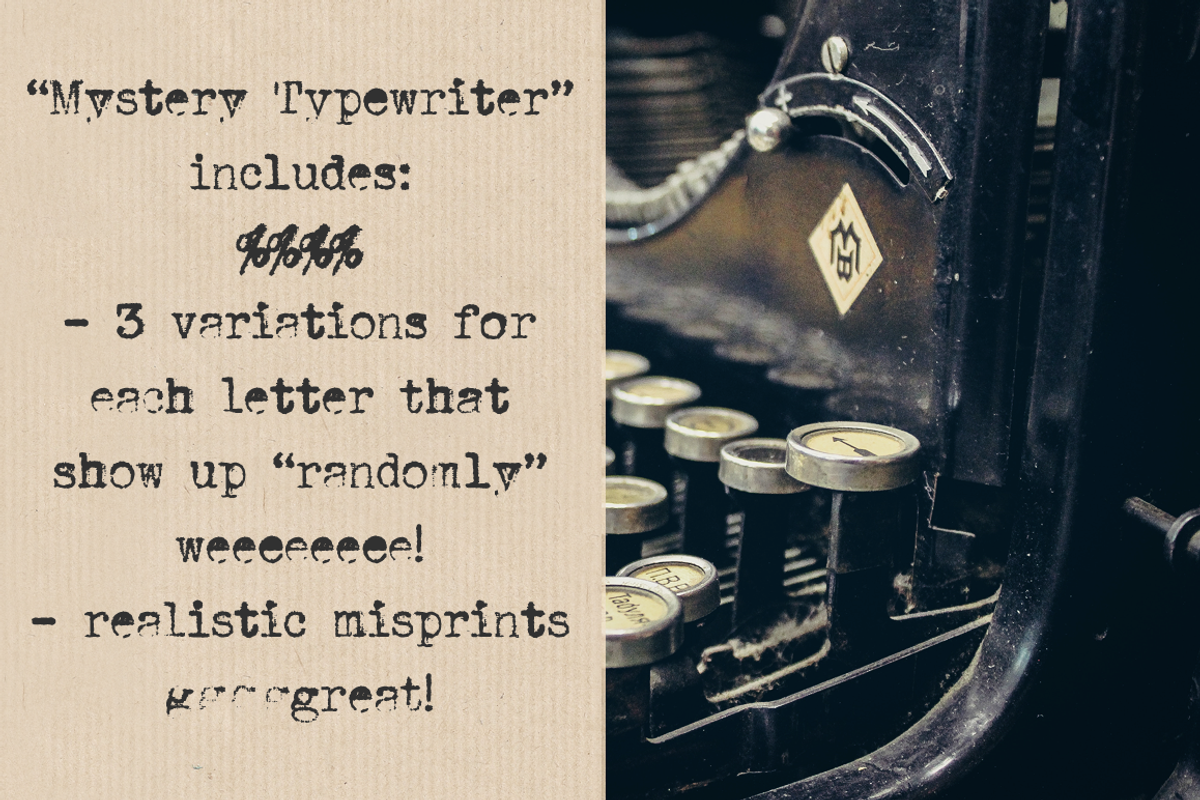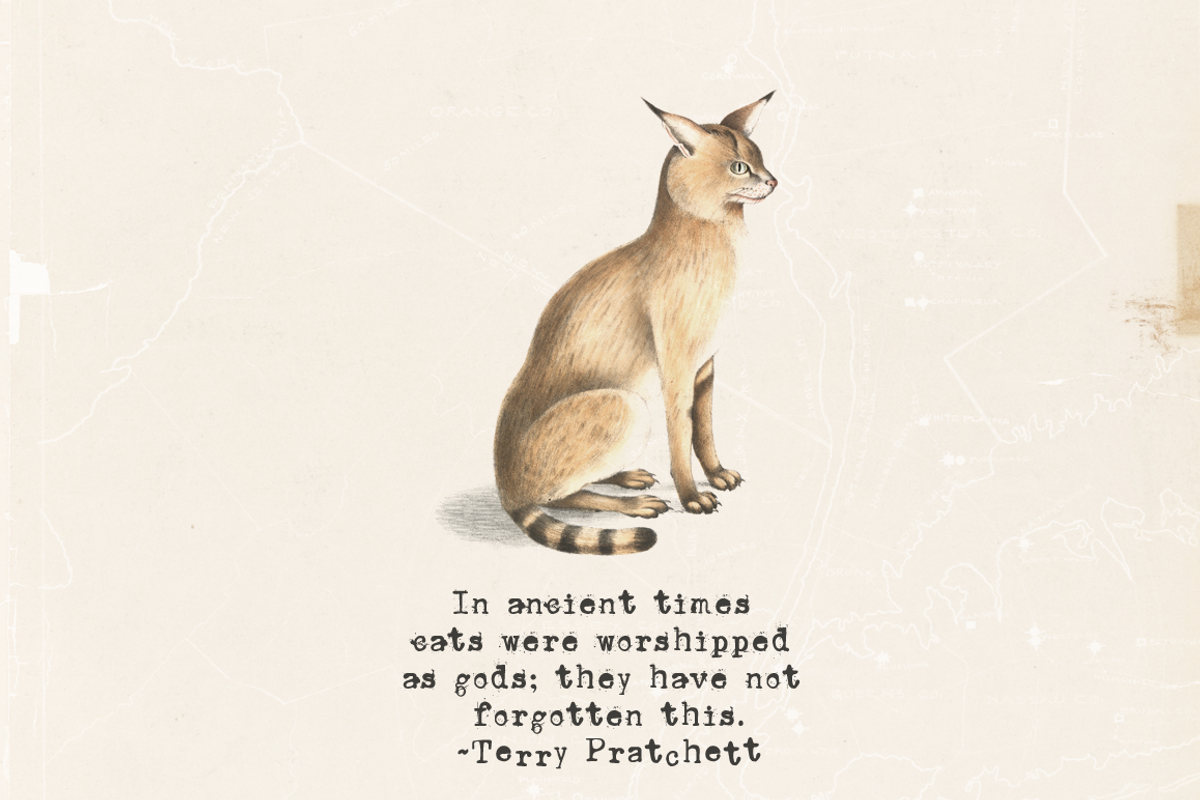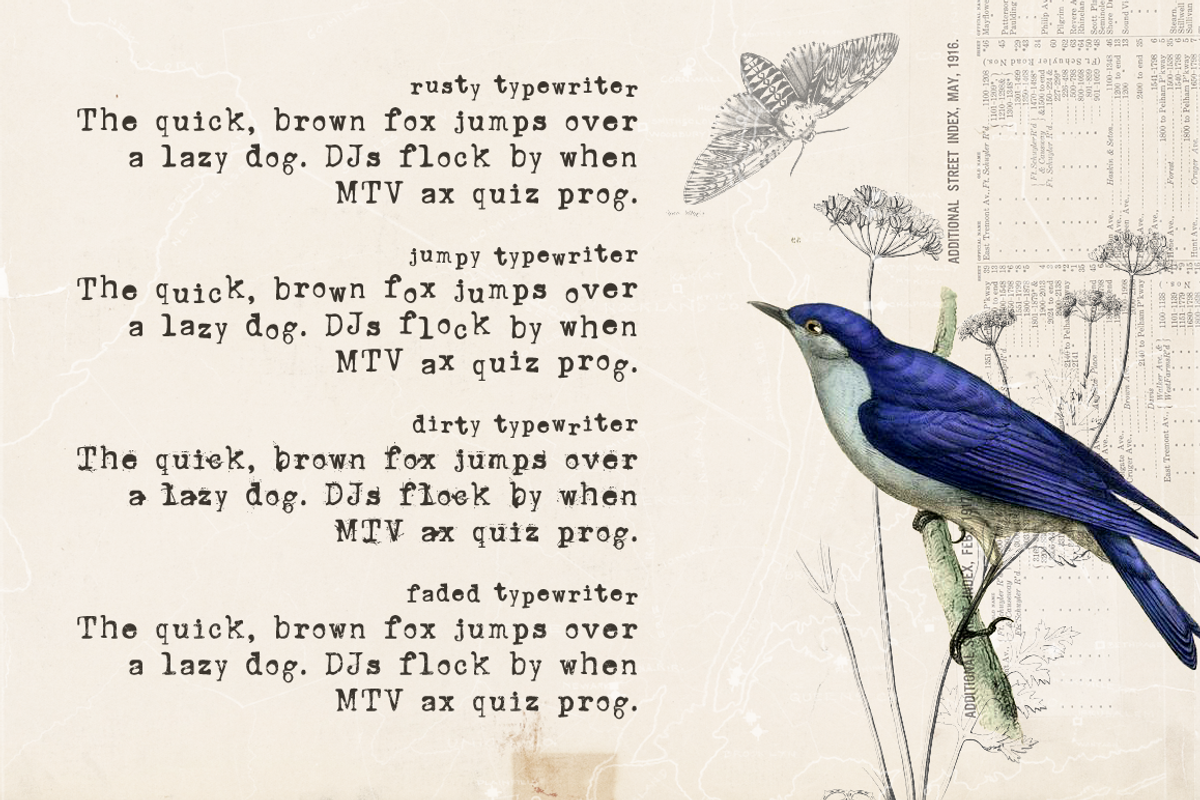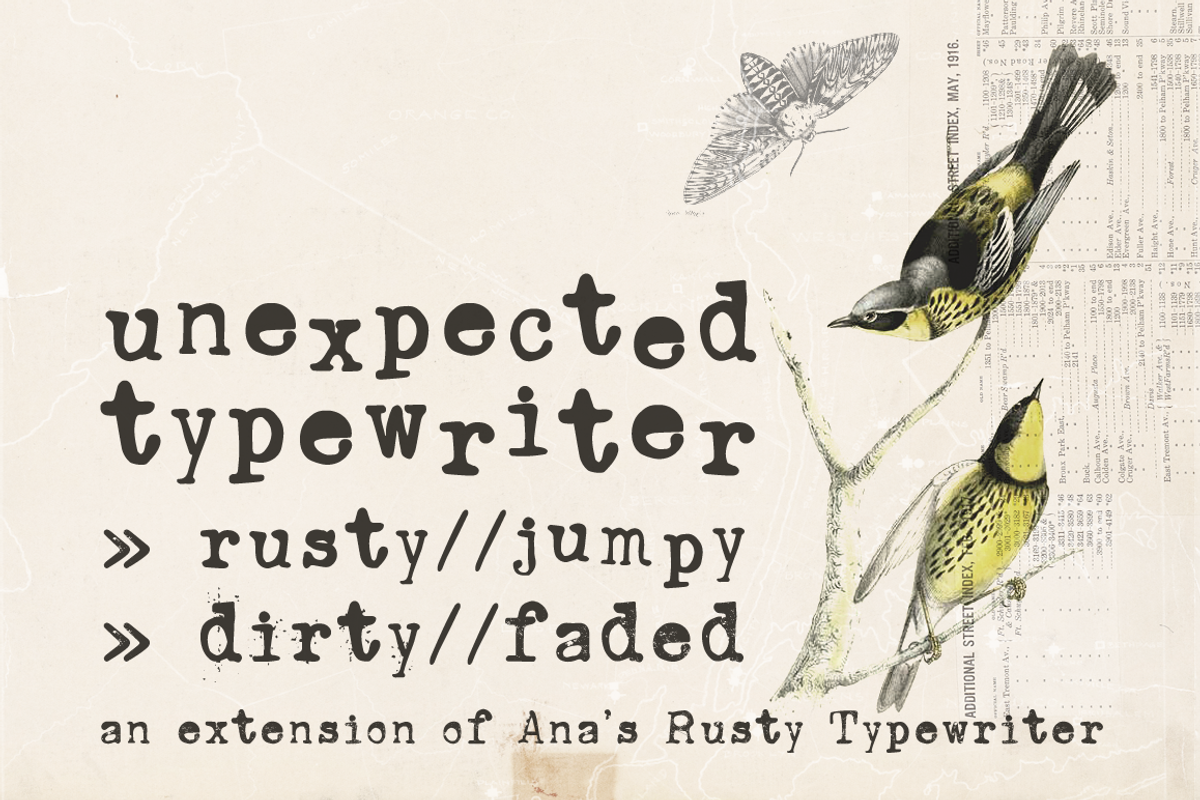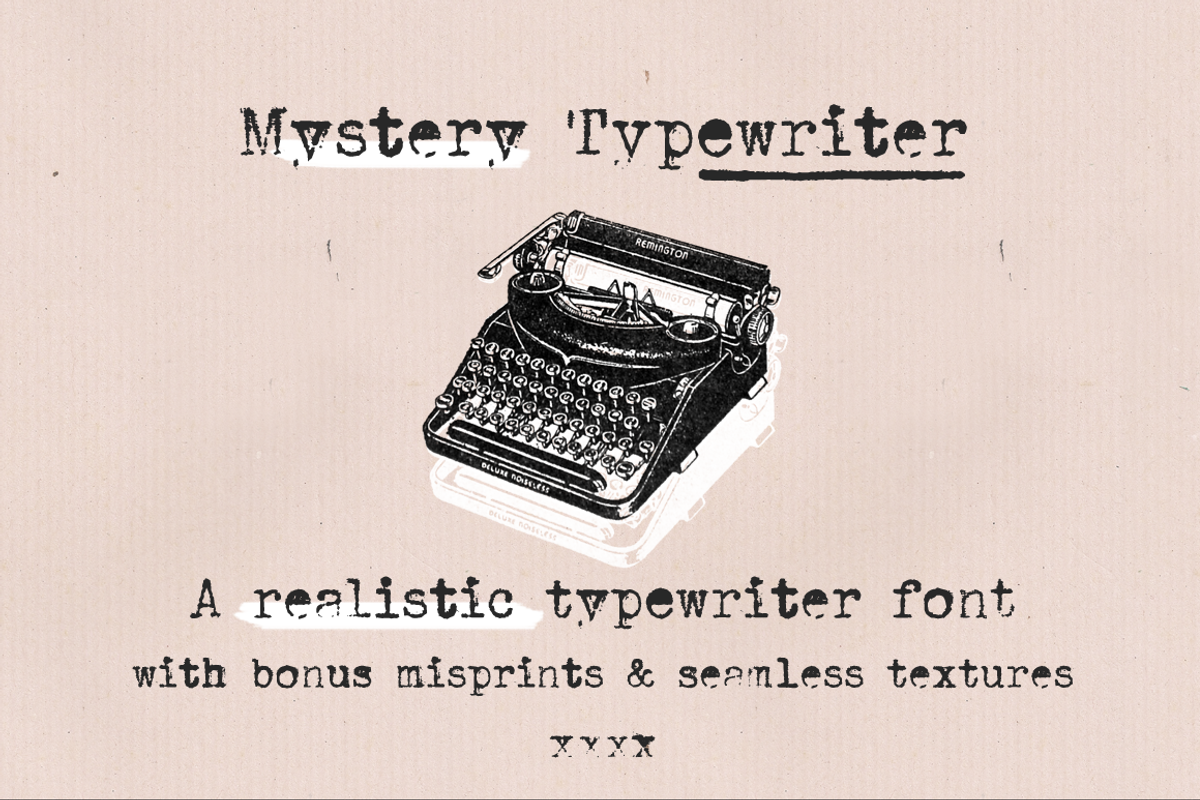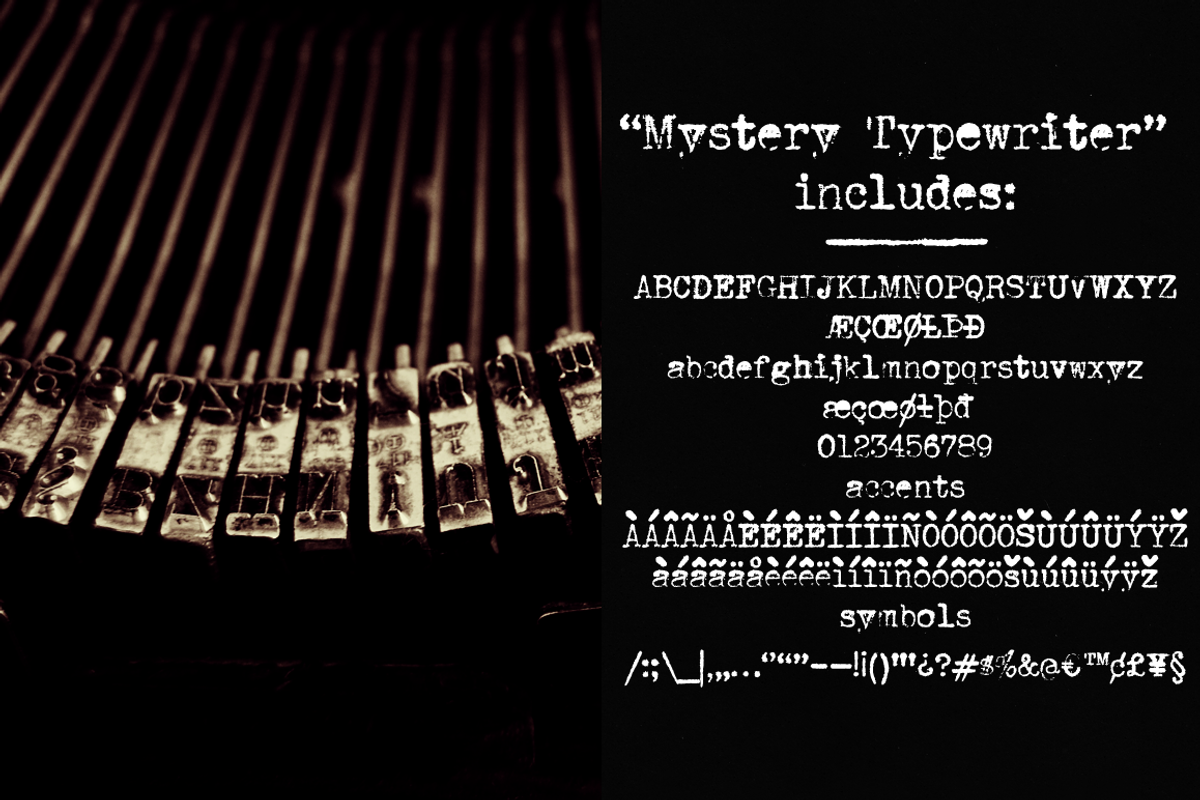
This bundle includes all types of typewriter fonts: from sans to serif, from very legible to grungy, from hand-drawn to realistic. They include a bunch of Open Type features, such as contextual alternates and ligatures, that make them super fun to use and realistic.
This set also includes all the extras included in the individual products, such as: seamless paper textures, vintage paper scans, photoshop brushes (with transparent PNGs), and instagram templates.
Use this set in any designs that needs a vintage touch. Use it in long or short texts, in digital collages, branding and packaging, social media posts, logotypes, etc.
Unexpected Typewriter:
Typewriter Font & Ink Pad Textures:
Fletcher Typewriter Font & Extras:
Amateur Typewriter monospaced font: